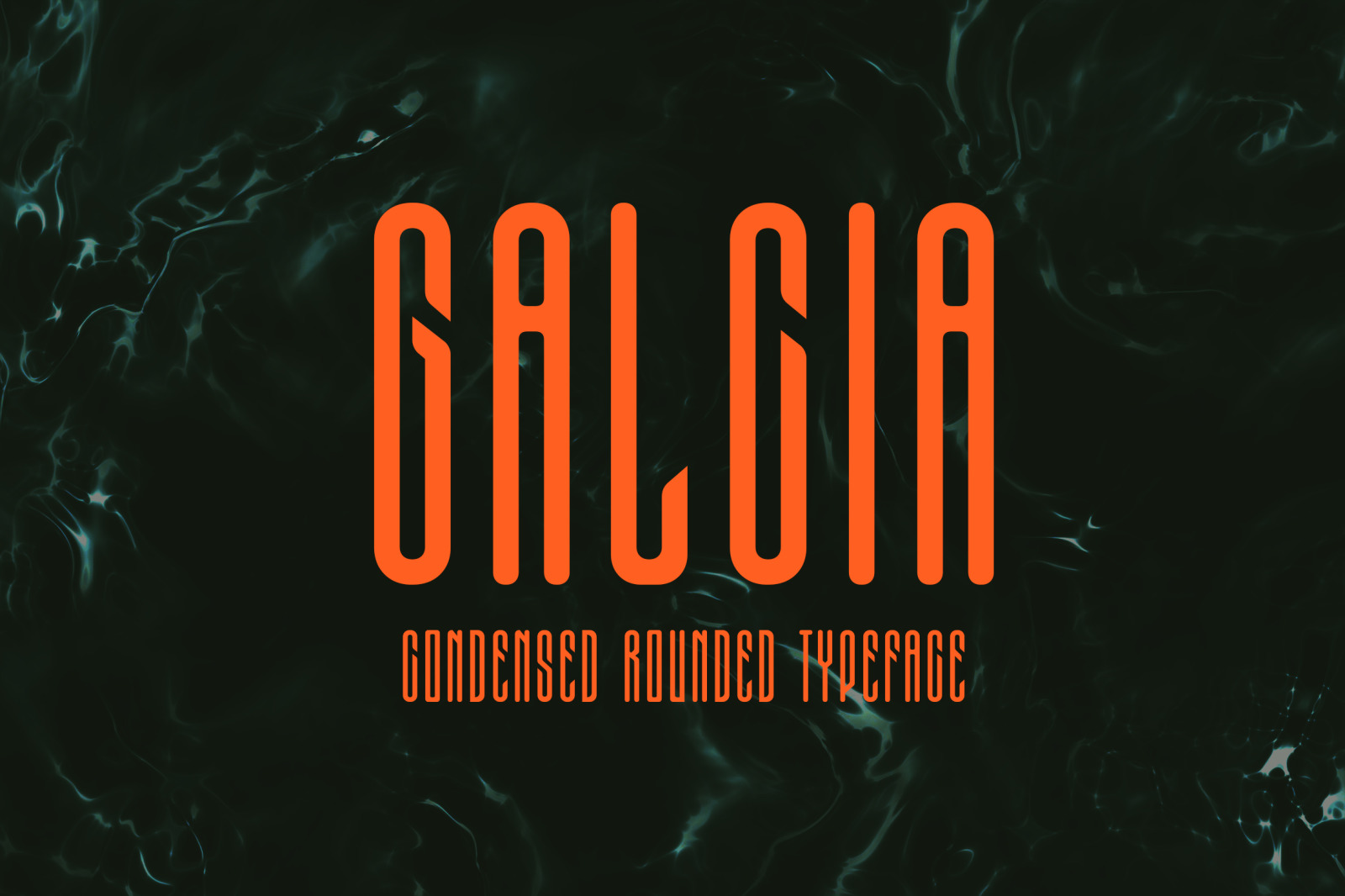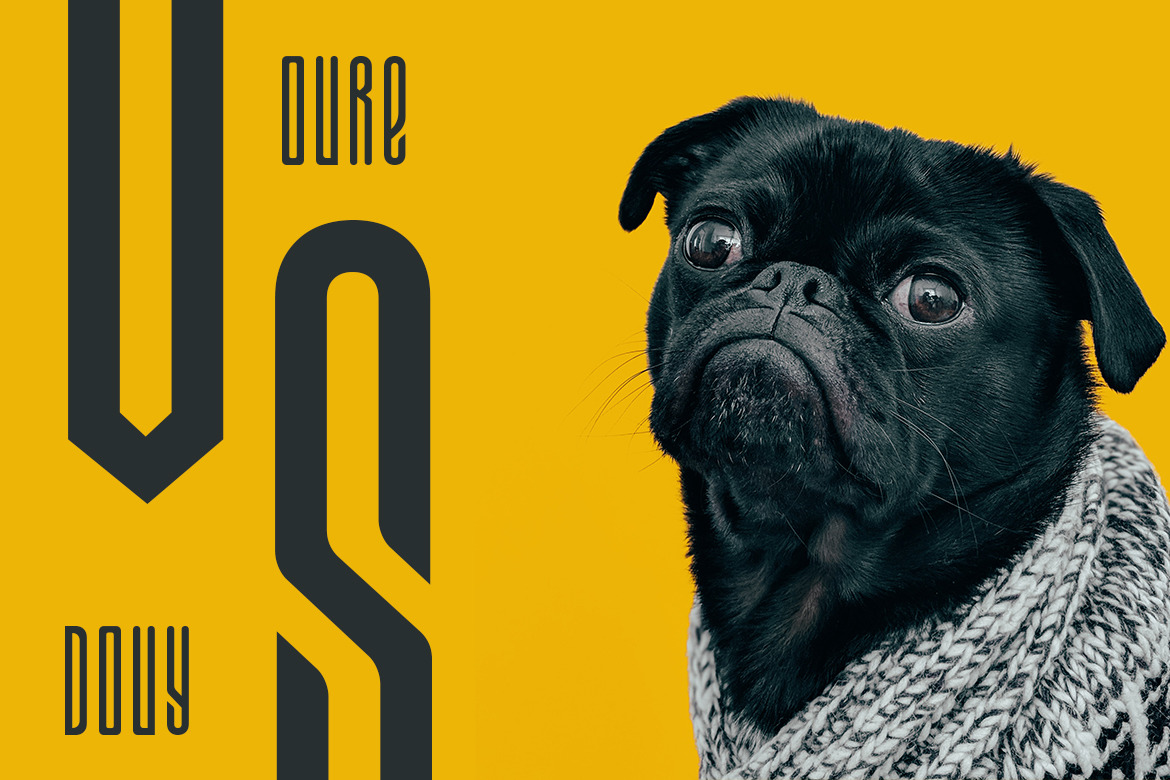
Galcia - Condensed Rounded Typeface
Galcia is a cool and retro styled display font. This minimalist,condensed and clean font can easily become your favorite. It can be used for books, magazines, social media posts, invitations, and so much more!